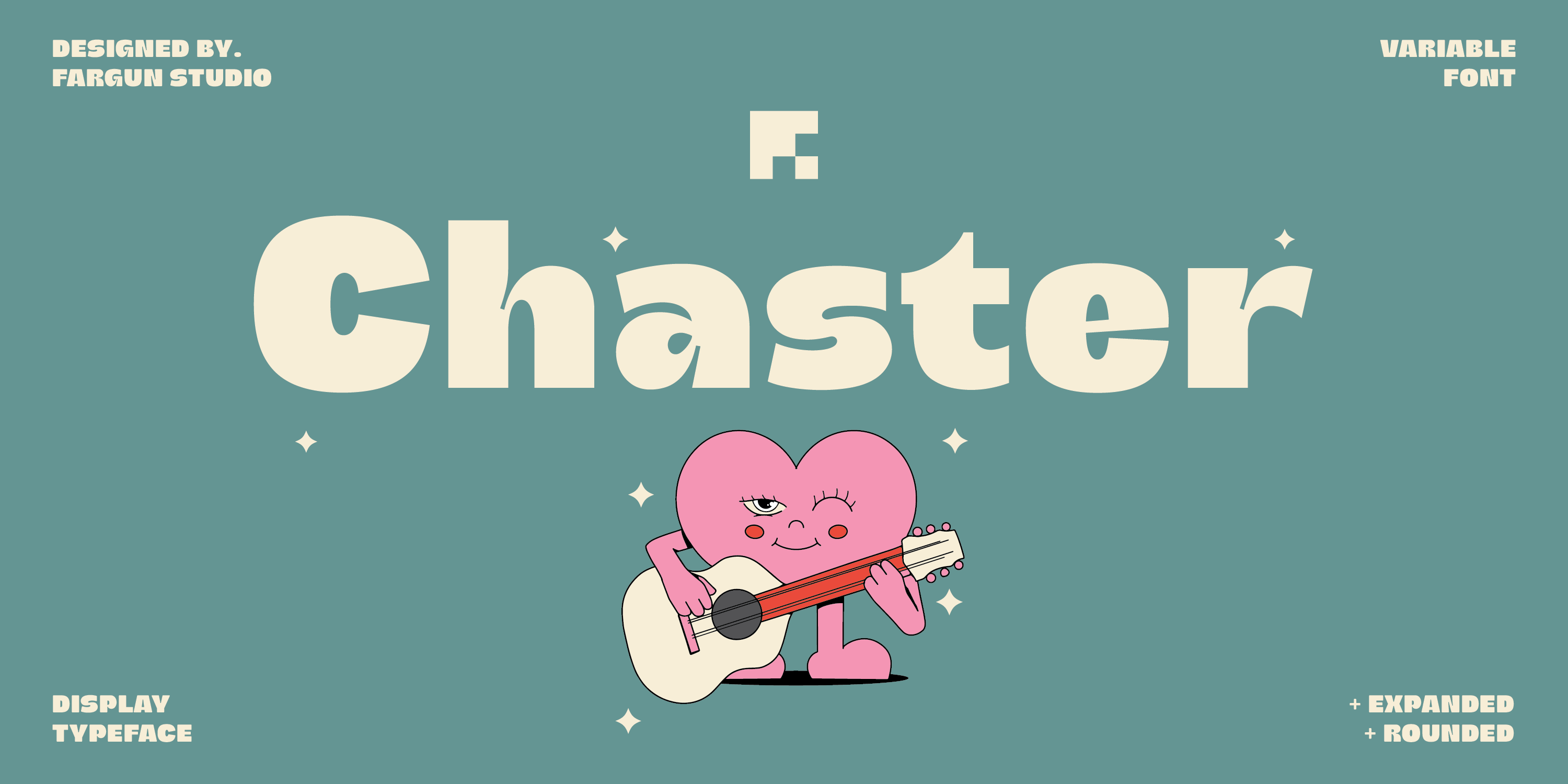
The Chaster Font is a compelling choice for projects that demand a modern, minimalist, and highly versatile sans-serif aesthetic with a distinct, often slightly quirky personality. It's perfectly suited for contemporary branding, digital interfaces, clean website designs, editorial layouts for design-focused publications, packaging for lifestyle products, and any design that requires a sleek, professional, and easily readable typeface. Its refined yet approachable character makes it ideal for conveying a sense of innovation, clarity, and sophisticated simplicity.
What makes Chaster Font so exciting is its exceptional balance of clean lines and subtle character. It features well-defined letterforms and consistent spacing, ensuring outstanding readability across various applications, from large headlines to small body text. This font carries a sense of modern elegance and understated confidence, making your content appear streamlined and trustworthy. It's a true workhorse typeface that provides a solid, unobtrusive foundation for any typographic system, allowing your message to shine through with a contemporary and polished appeal. Its distinctiveness often comes from subtle design elements that set it apart from typical sans-serifs, adding a hint of uniqueness without compromising functionality.
The Chaster Font family is typically comprehensive, offering a wide array of weights and styles to provide maximum flexibility for designers. You can expect a full spectrum from Thin and Light to Regular, Medium, SemiBold, and Bold, often accompanied by complementary italic versions for each weight. This broad family allows for sophisticated typographic hierarchies, enabling precise control over emphasis, flow, and visual balance within your designs. Some versions might also include condensed styles, display variants, or specialized numerals to further expand its utility.
Whether you're developing a cutting-edge digital platform, designing a sleek corporate identity, or crafting a visually appealing editorial piece, the Chaster Font Free Download offers an indispensable tool. Its contemporary aesthetic and robust functionality make it a premier choice for any project that requires a clean, elegant, and highly effective typeface with a distinctive modern edge.